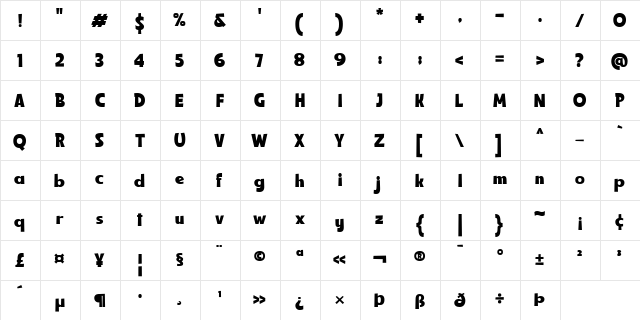
Ariston Comic Demo Regular
Foundry Ryan Prasetya
DesignerRyan Prasetya
Design Context for Ariston Comic Demo Typeface
Ariston Comic Demo trades formality for fun, with bouncy, characterful letterforms that bring warmth and energy to any project.
Font Pairing: Pairs well with a rounded or humanist sans for body copy, maintaining the friendly tone without relying on Ariston Comic Demo to carry extended reading.
Pro Tip: Avoid using Ariston Comic Demo for long passages of text — it works best for headlines, labels, and short calls to action.